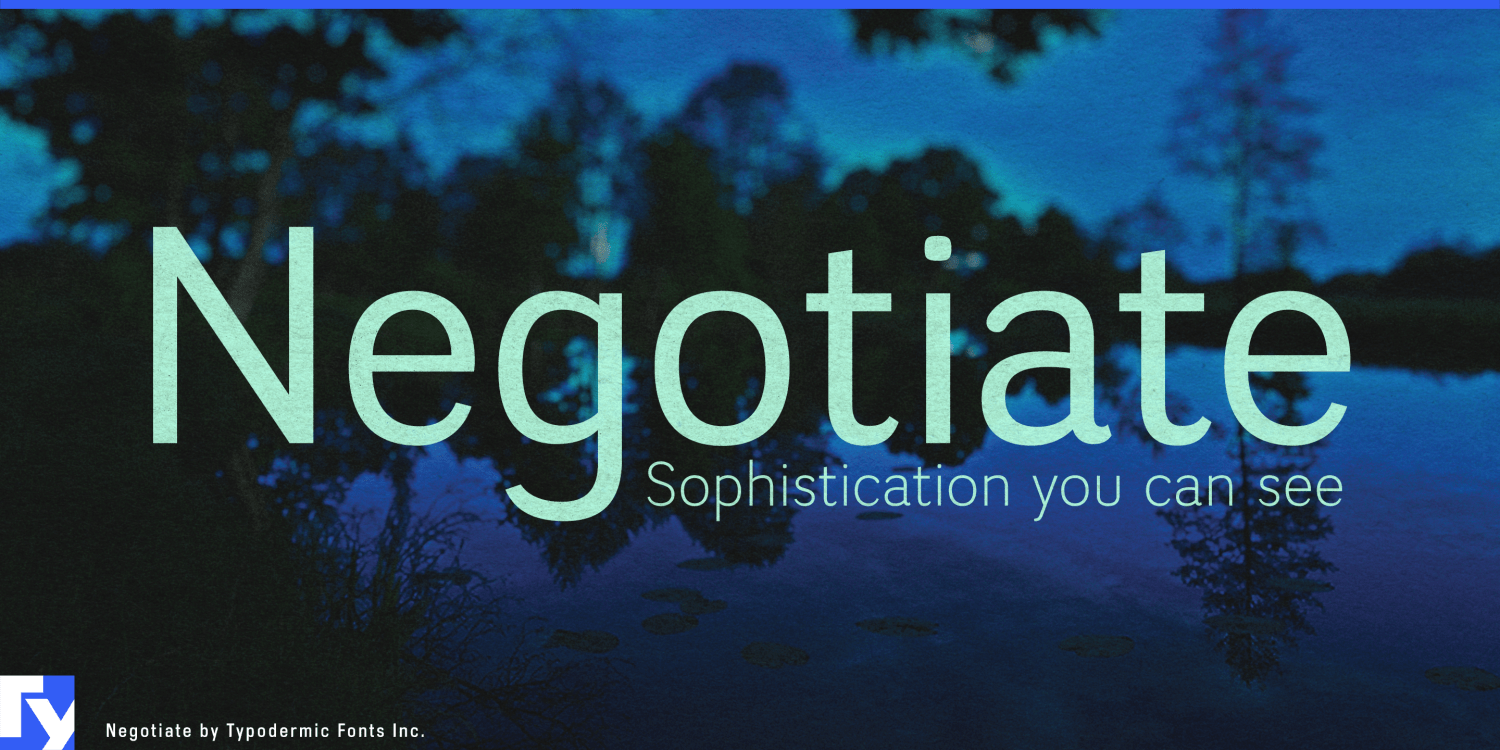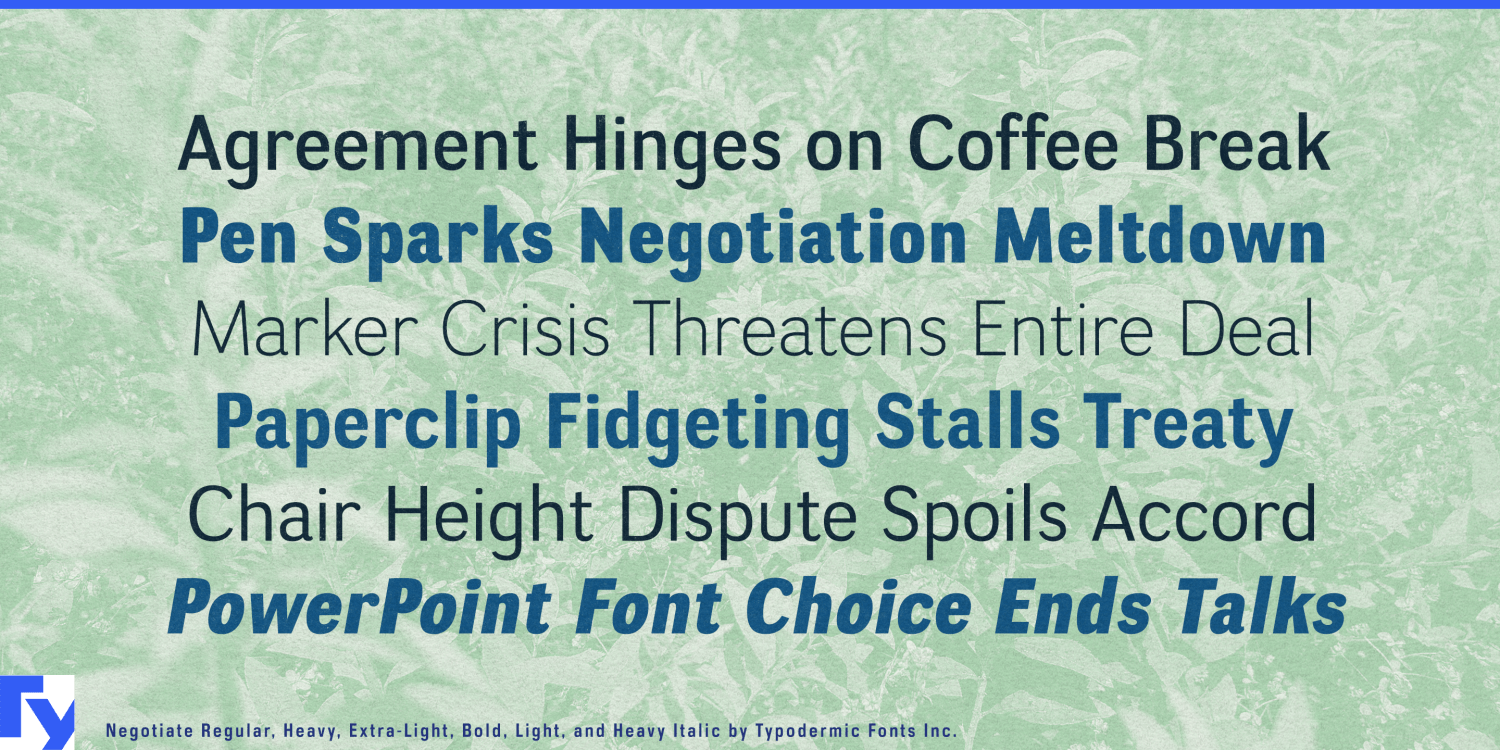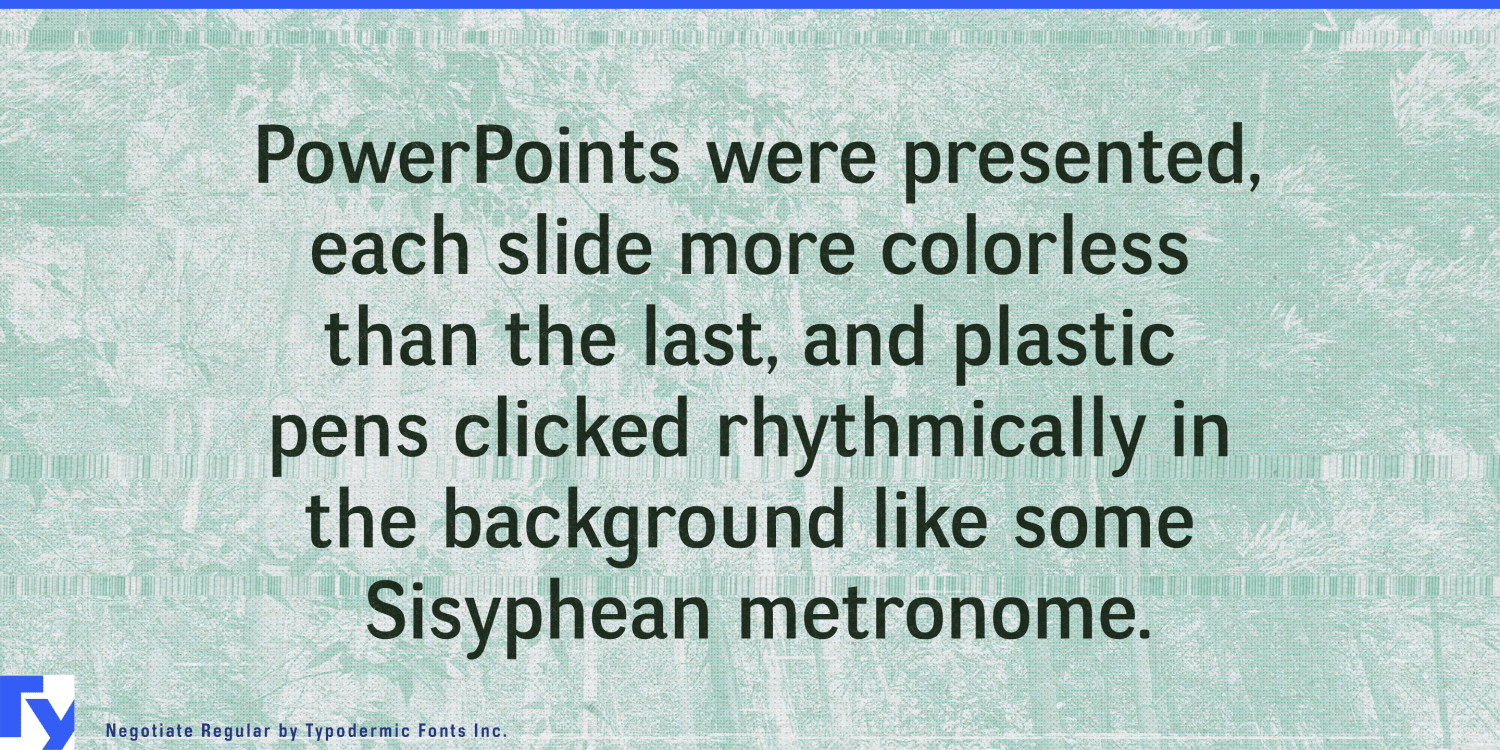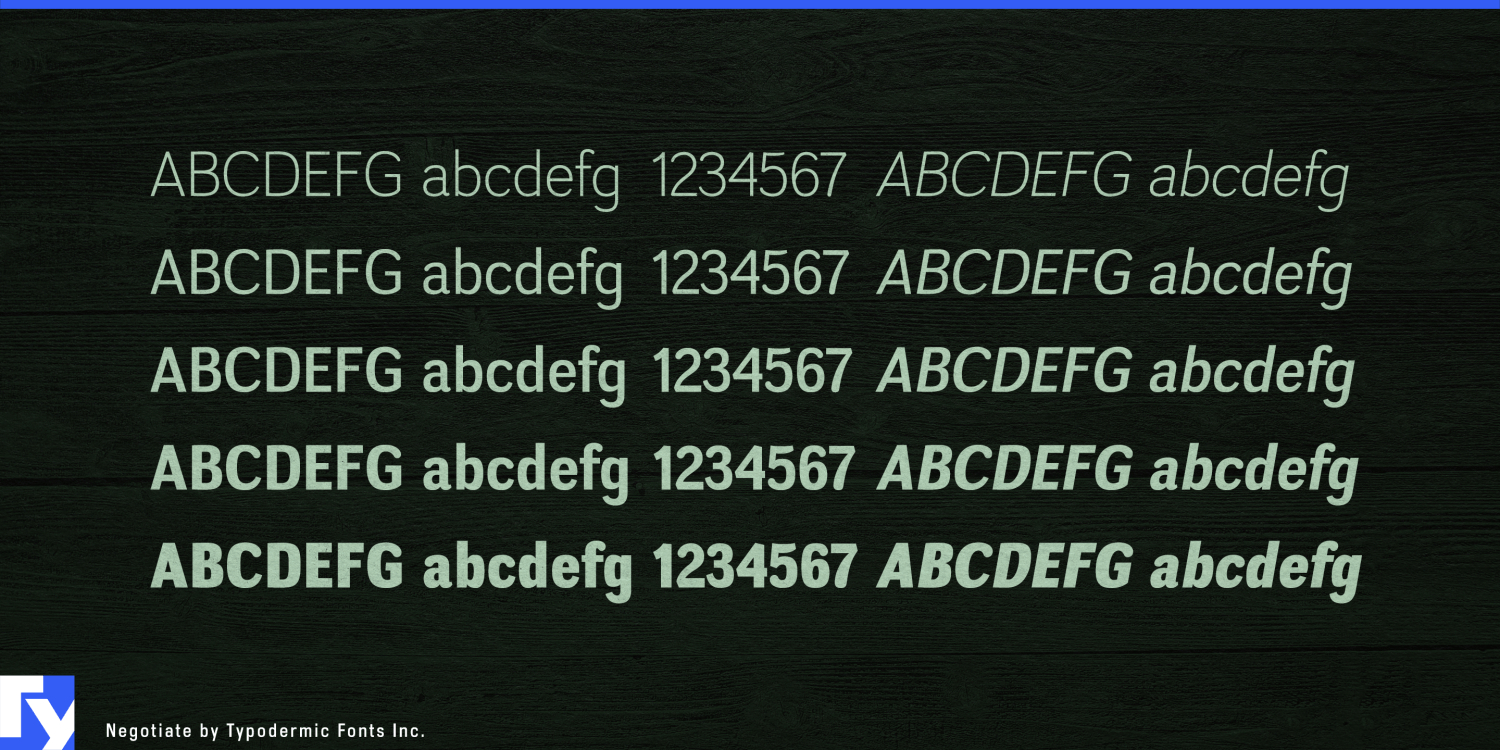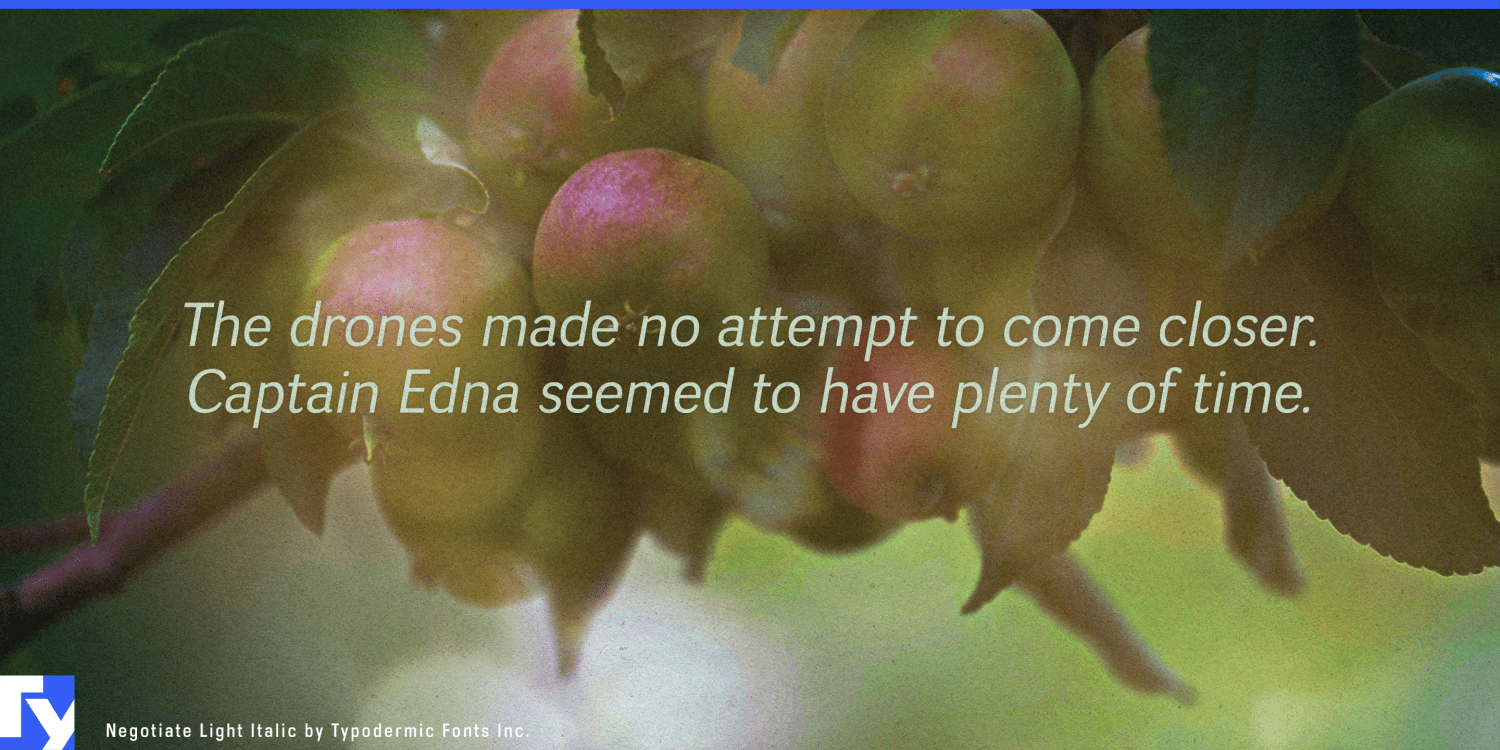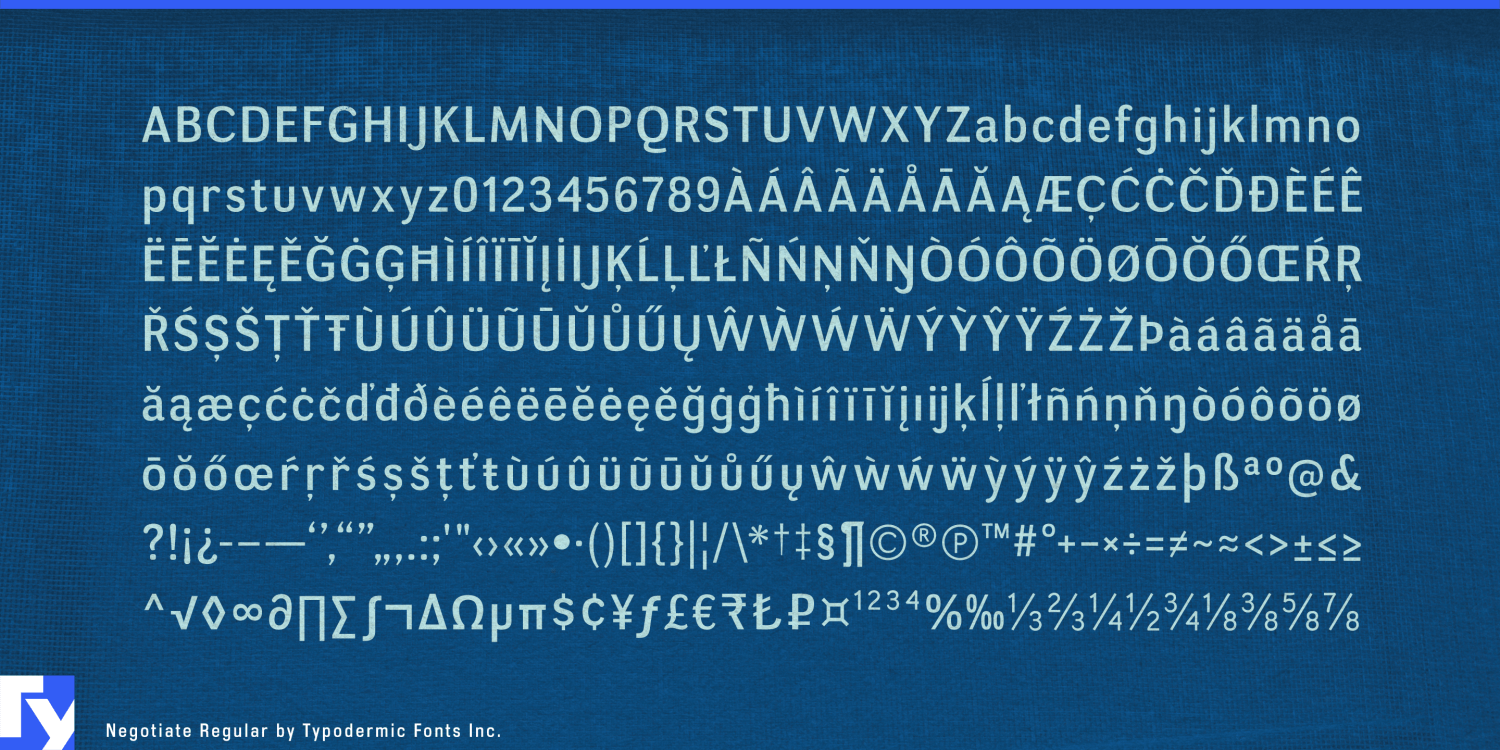
Negotiate
Font Family by Typodermic
Negotiate isn’t just a typeface—it’s a masterclass in the art of typographic diplomacy. This sans-serif marvel strikes a delicate balance between assertiveness and grace, its very form a visual representation of the give-and-take inherent in any successful negotiation.
Imagine letters that speak with the confidence of a seasoned diplomat and the charm of a consummate host. Negotiate’s distinctive blend of rounded and flat stroke ends creates a captivating visual dialogue on the page. The rounded elements whisper of flexibility and openness, while the flat strokes stand firm, unyielding in their conviction. It’s this dance between soft and sharp that gives Negotiate its unique voice in the crowded room of contemporary typefaces. But Negotiate isn’t content to rest on its laurels of mere visual appeal. With five meticulously crafted weights at your disposal, you’re equipped to navigate any typographic terrain. From the whisper-thin lines perfect for elegant invitations to the bold statements of headlines that demand attention, Negotiate adapts to your needs with the finesse of a skilled mediator. And when you need that extra touch of refinement? The italics lean in, adding a note of sophisticated urgency to your message.
Negotiate doesn’t just cross borders—it erases them. Supporting a vast array of Latin-based European writing systems, this typeface is as comfortable in a Parisian fashion house as it is in a Stockholm tech startup. Its old-style numerals add a touch of classic elegance, ensuring that even your figures speak with authority and style. Ready to elevate your designs from mere communication to true conversation? Let Negotiate be your typographic envoy. Whether you’re crafting the perfect pitch deck, designing a high-end fashion magazine, or creating signage for a luxury hotel, Negotiate ensures your message is delivered with impeccable style and undeniable impact.
Don’t just choose a font—choose a skilled communicator. With Negotiate, you’re not just setting type; you’re setting the stage for success. In a world where first impressions are everything, Negotiate ensures you’ll always have the upper hand. The table is set, the terms are favorable—are you ready to sign on the dotted line and let Negotiate speak for you?